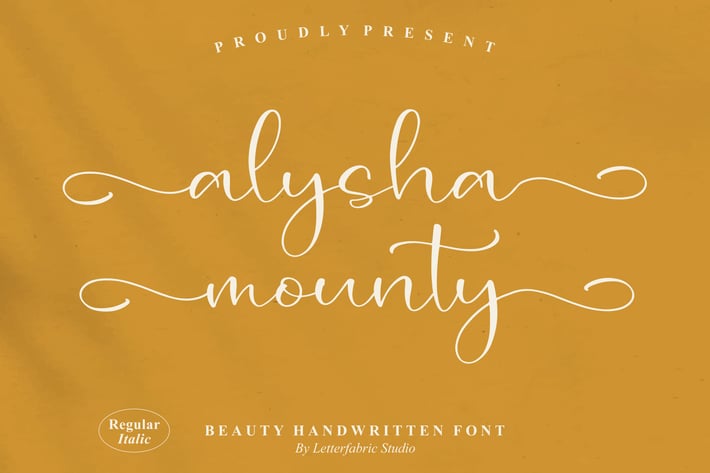
Alysha Mounty Handwritten Font
Alysha Mounty is a graceful, beauty-style handwritten script with long, flowing entry/exit strokes and a soft contrast that keeps every word feeling light and elegant. Its curves sit comfortably between casual note-taking and refined calligraphy, making it a natural fit for brands and moments that want to feel warm, personal, and thoughtfully styled.
+ Two coordinated styles: Regular & Italic
+ Smooth, flowing baseline with elegant swashes
+ Full basic Latin set with punctuation & symbols
+ Wedding suites, place cards & event signage
+ Boutique branding, logos & packaging
+ Social media quotes, highlight covers & stories
+ Lifestyle blogs, stationery & greeting cards
+ Personal signatures and name marks
Elevate every note and name—Alysha Mounty wraps your words in effortless elegance.